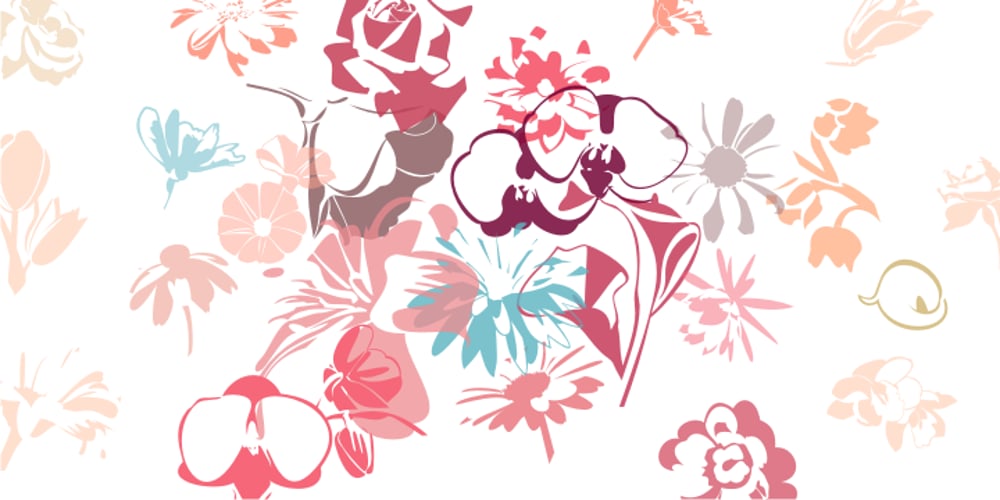
Bloomy Font Family was designed by Diana Elkina and published by BrandCarry. Bloomy contains 1 styles and family package options. Bloomy is a picture font consisting of 52 high quality flower shapes with clean outlines and a minimum of vector points. This unique set of natural forms may be well used in graphical design projects like brochures, advertisements, posters, etc.